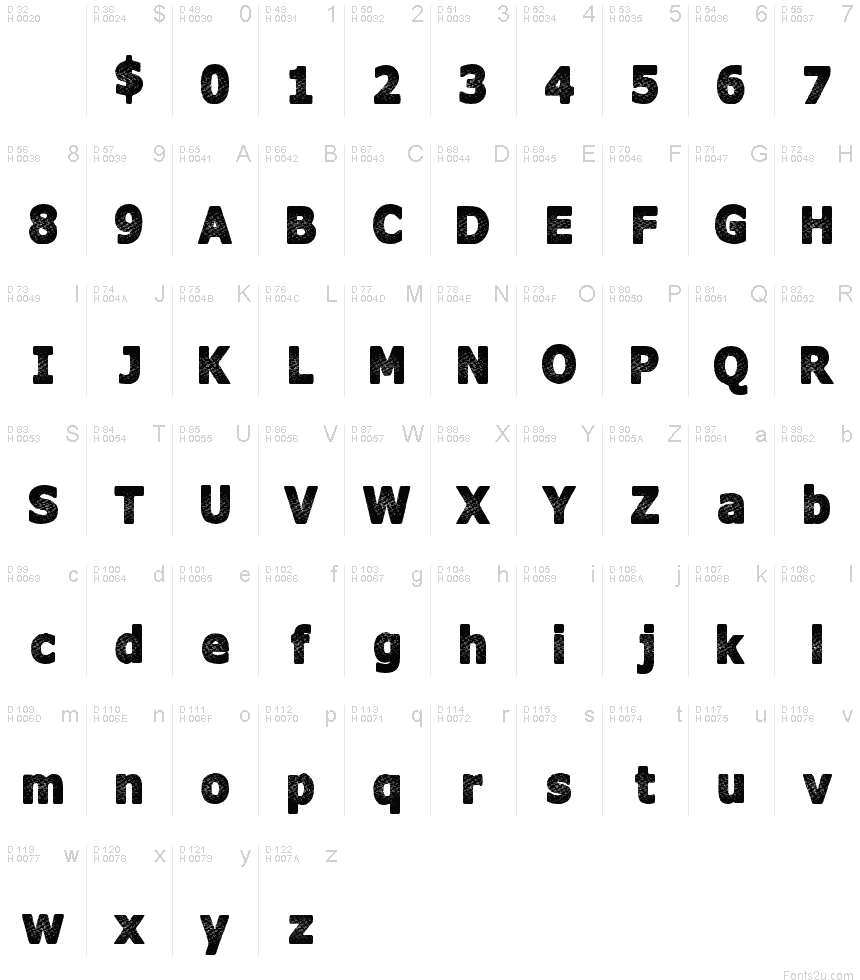
Inter Fade by Xerographer Fonts is a free eroded display font with broad, oversized, soft-edged letters and a dense halftone wear pattern spread across their faces. Uneven widths and buckled outlines keep the heavy forms lively.
Grunge and DIY graphics are its clearest territory, especially music posters, skate merchandise, and streetwear branding that benefit from lettering with a printed, scuffed surface. The field of tiny dots can echo screen-printed photography or stippled illustration on album and event packaging, making the type part of the artwork instead of a clean label.